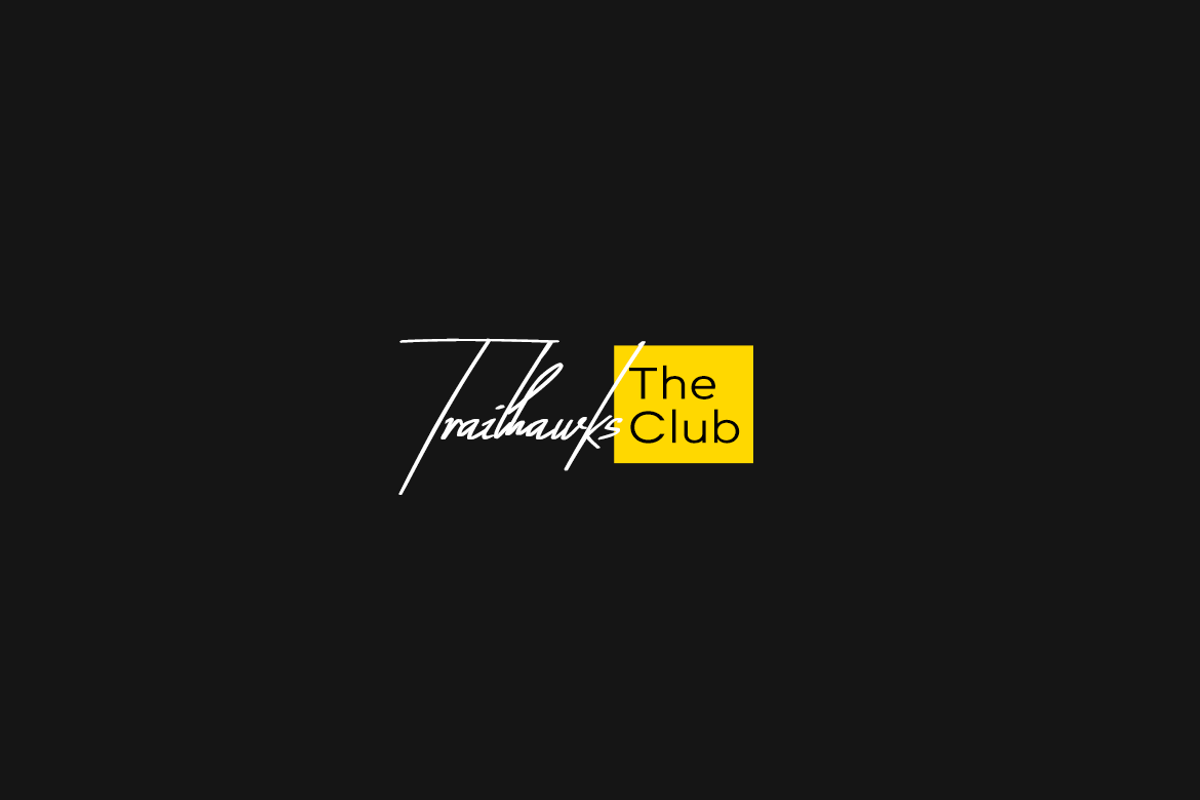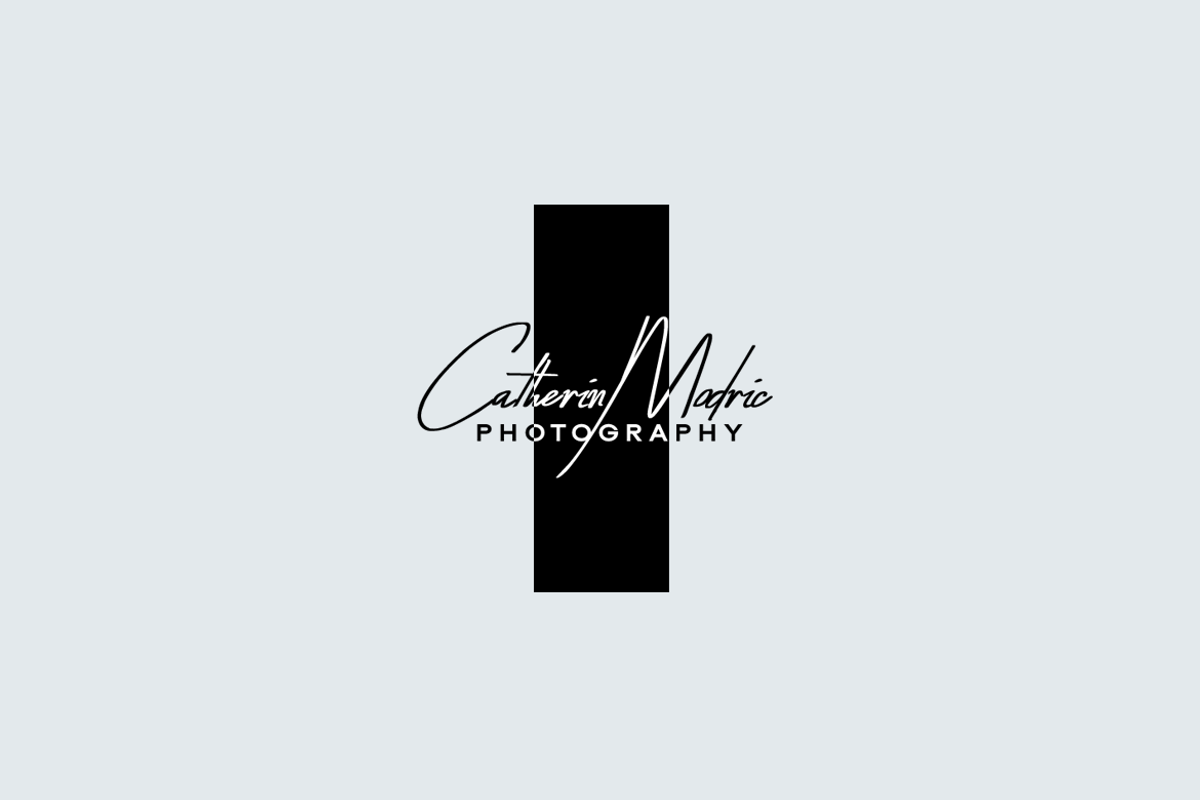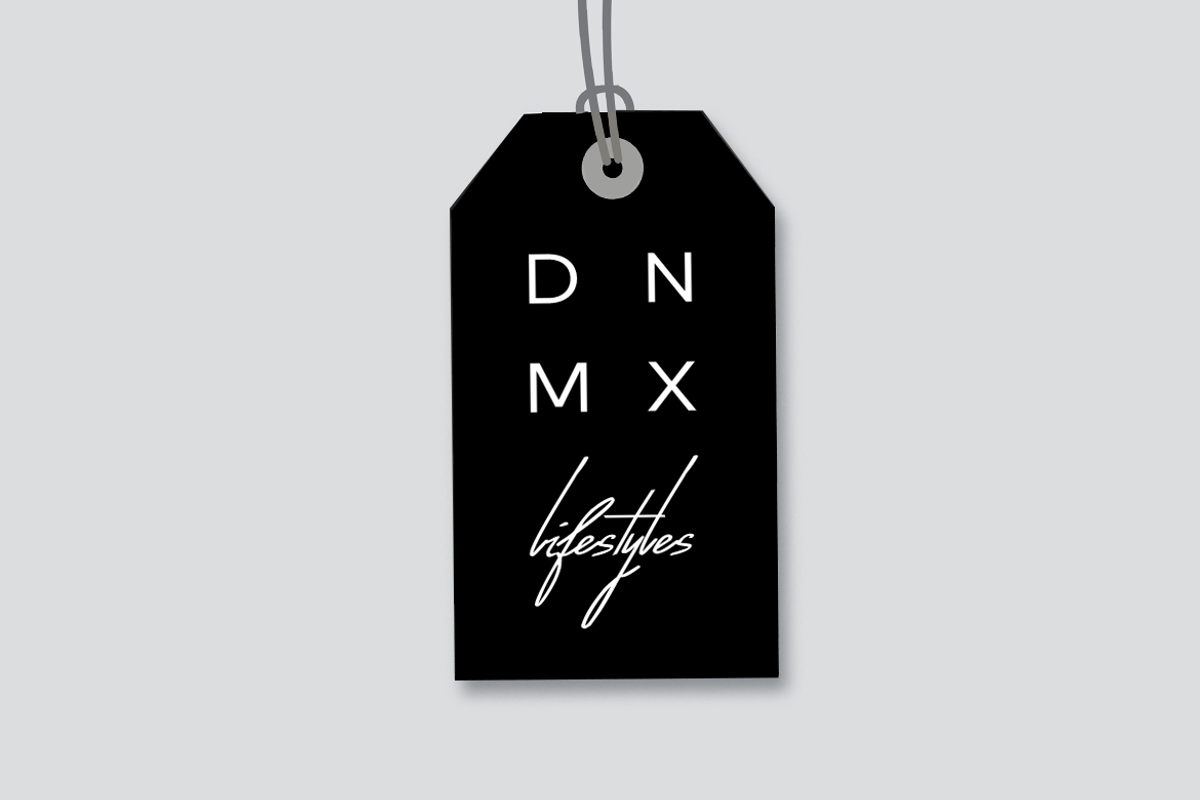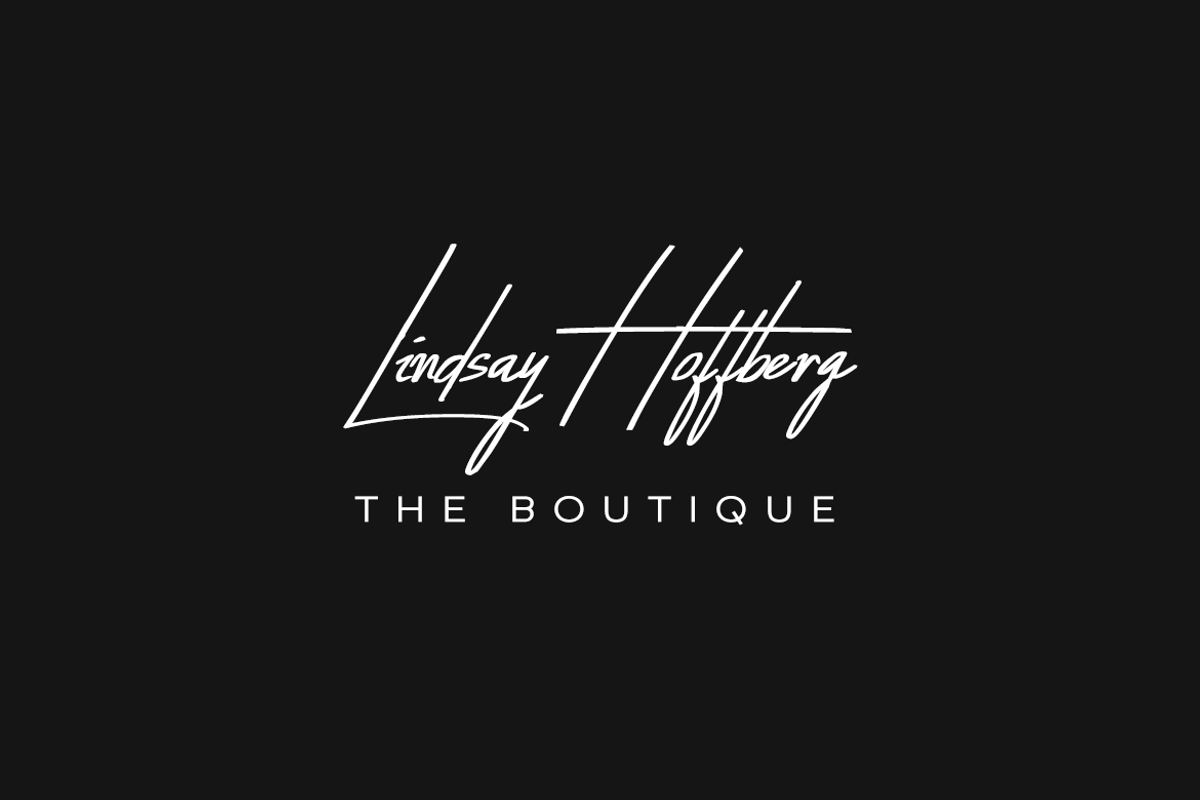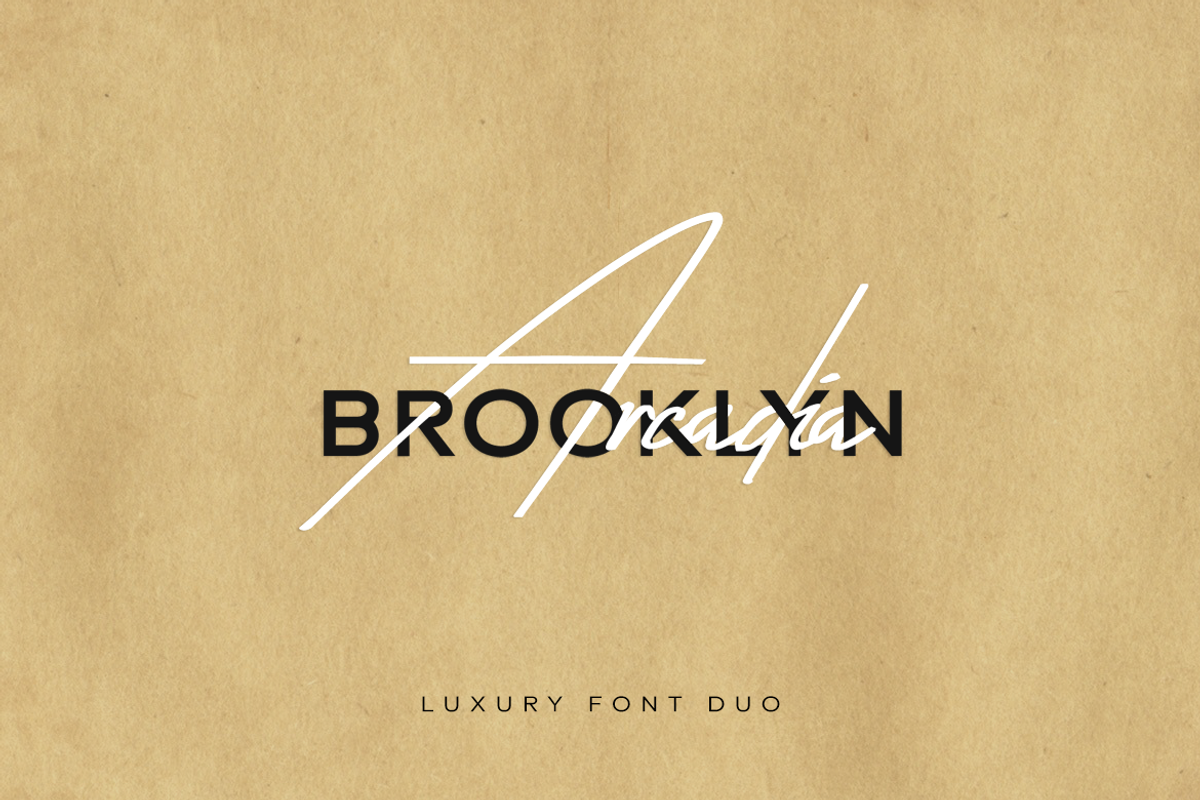
Arcadia & Brooklyn - Luxury Font Duo
This is the lovingly handmade font duo for elite / luxury branding, logotypes, greetings and marketing graphics. This unique duo combination is featuring our fonts Arcadia and Brooklyn. You can create stunning logotypes and branding designs with this typeface (just see demo graphics to get a basic idea how it looks).
Arcadia-Nova is a stunningly beautiful handwritten font for luxury / branding / wedding invites / greeting cards / promotional graphics. Arcadia-Nova is handmade precisely adding a finest touch of perfection and aesthetics at it’s level best. Brooklyn is a modern Sans-Serif typeface inspired by classic geometric typefaces that keep the minimalism at it’s level best. BROOKLYN will be perfect for creating nicely looking headlines (add some letter spacing and it will amaze you) that you always find in fashion web stores and minimal portfolio websites.
In this duo pack, you will find single weight font of Arcadia (Regular Handwritten) and three weights of Brooklyn (Normal, Bold & Heavy).